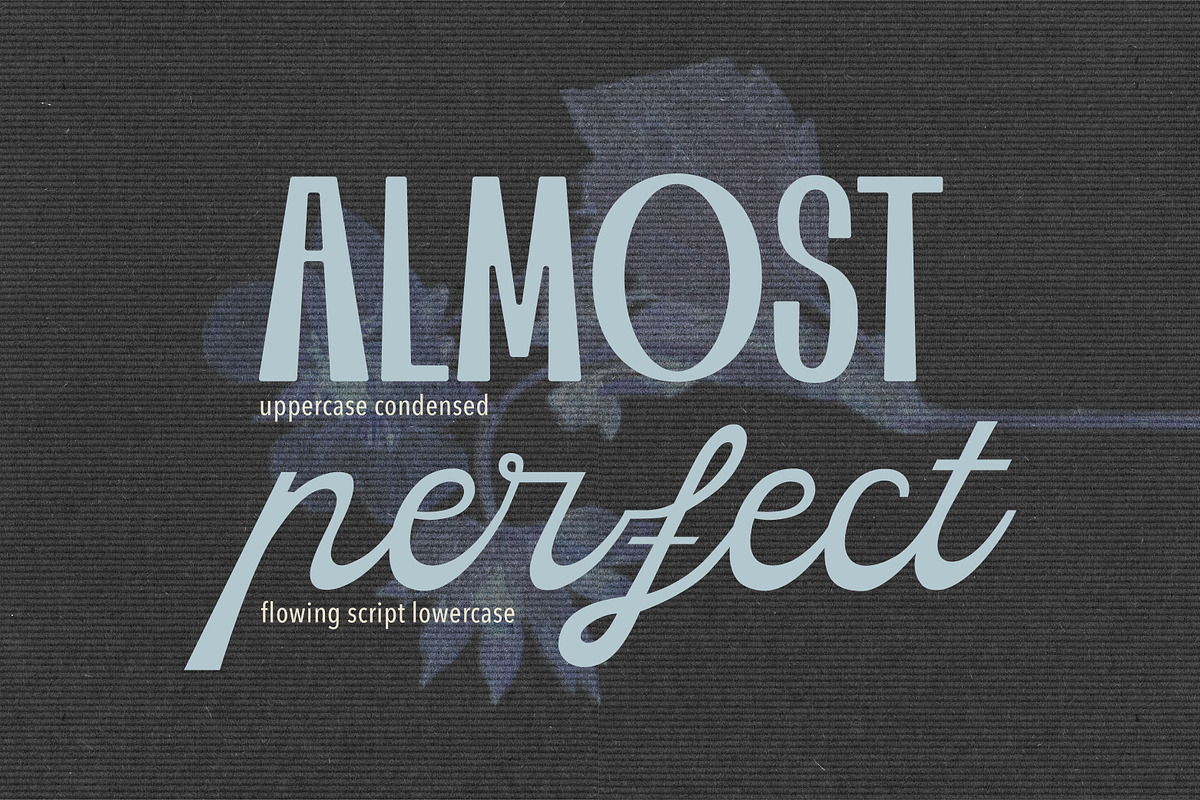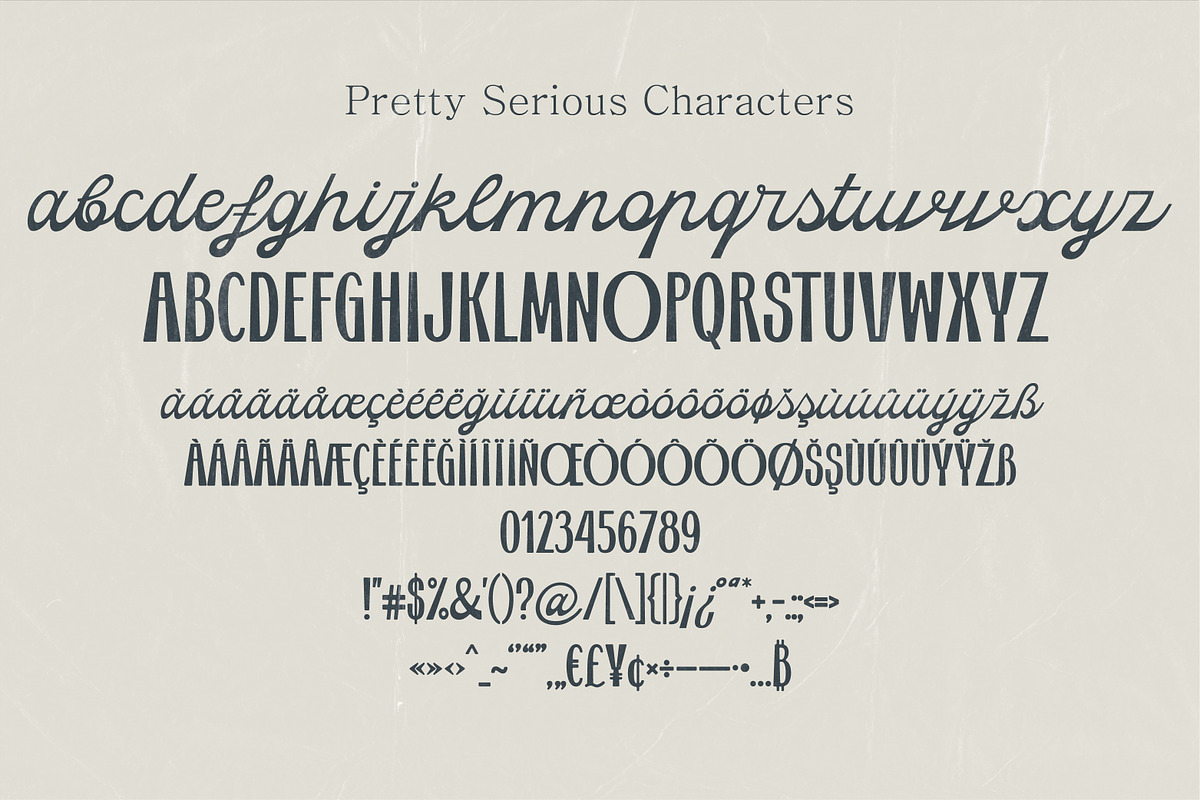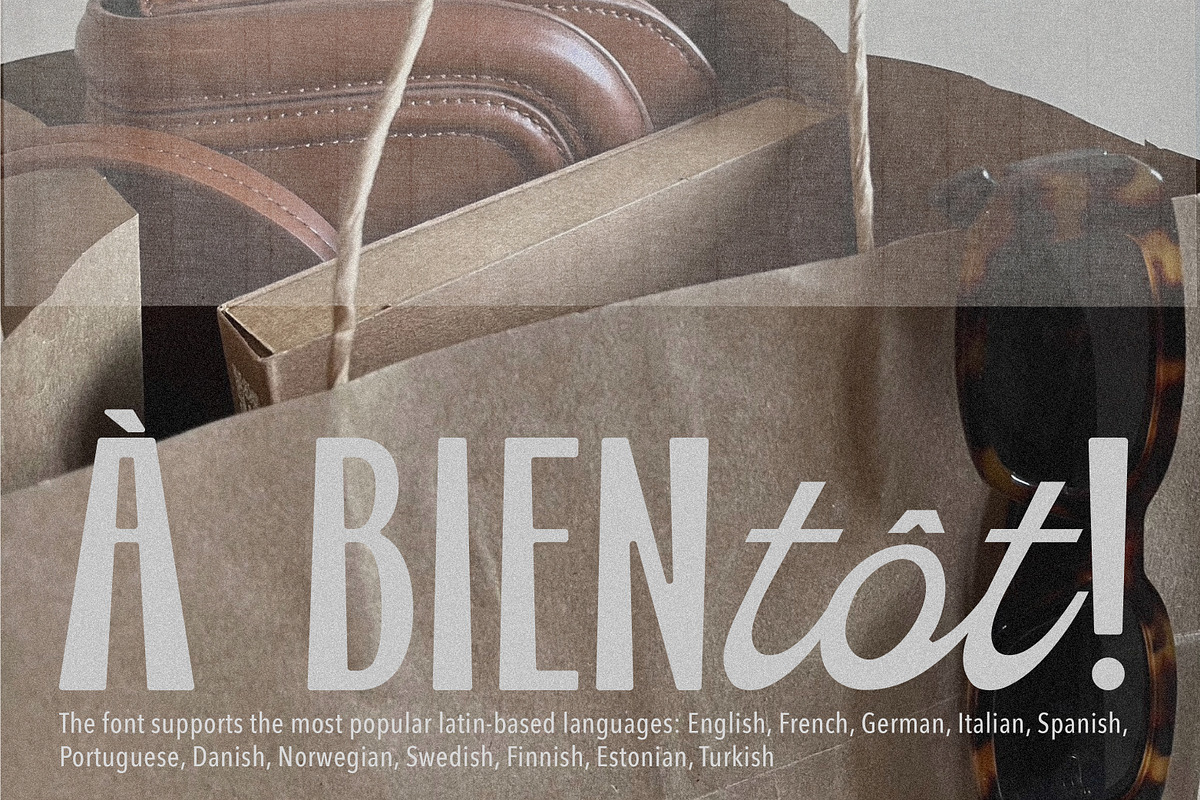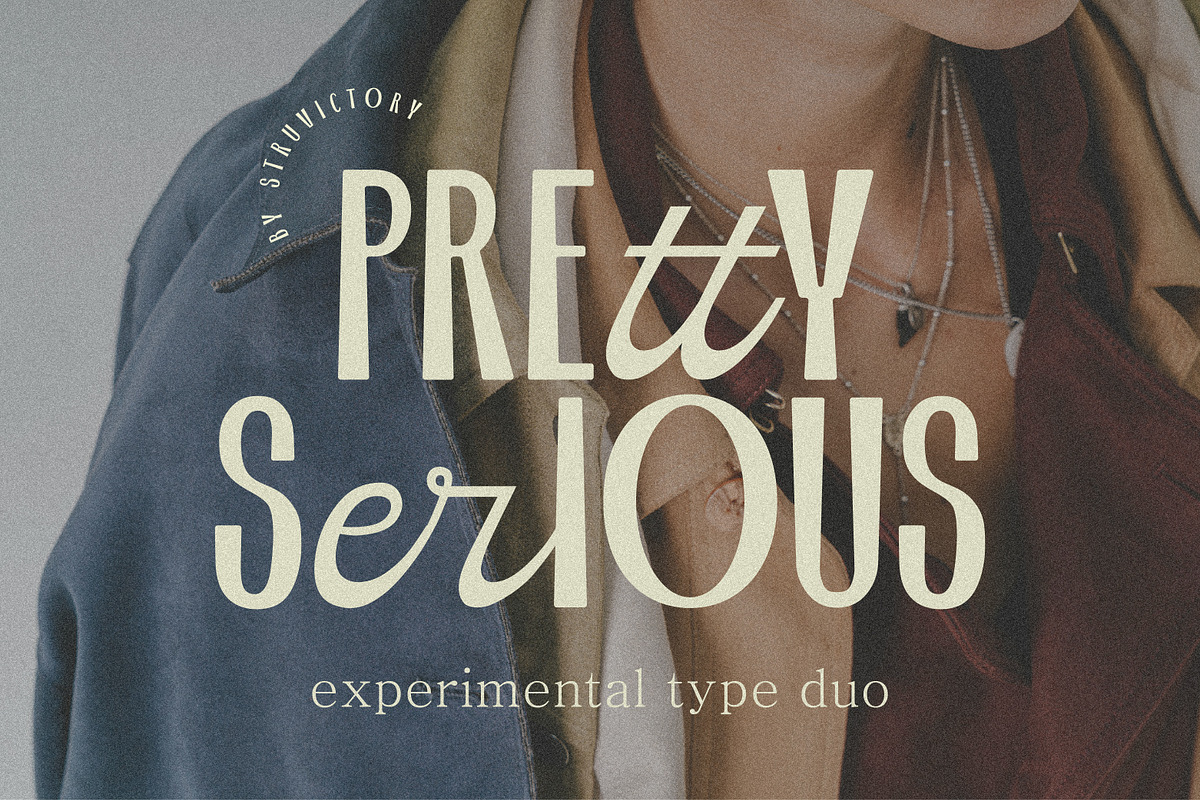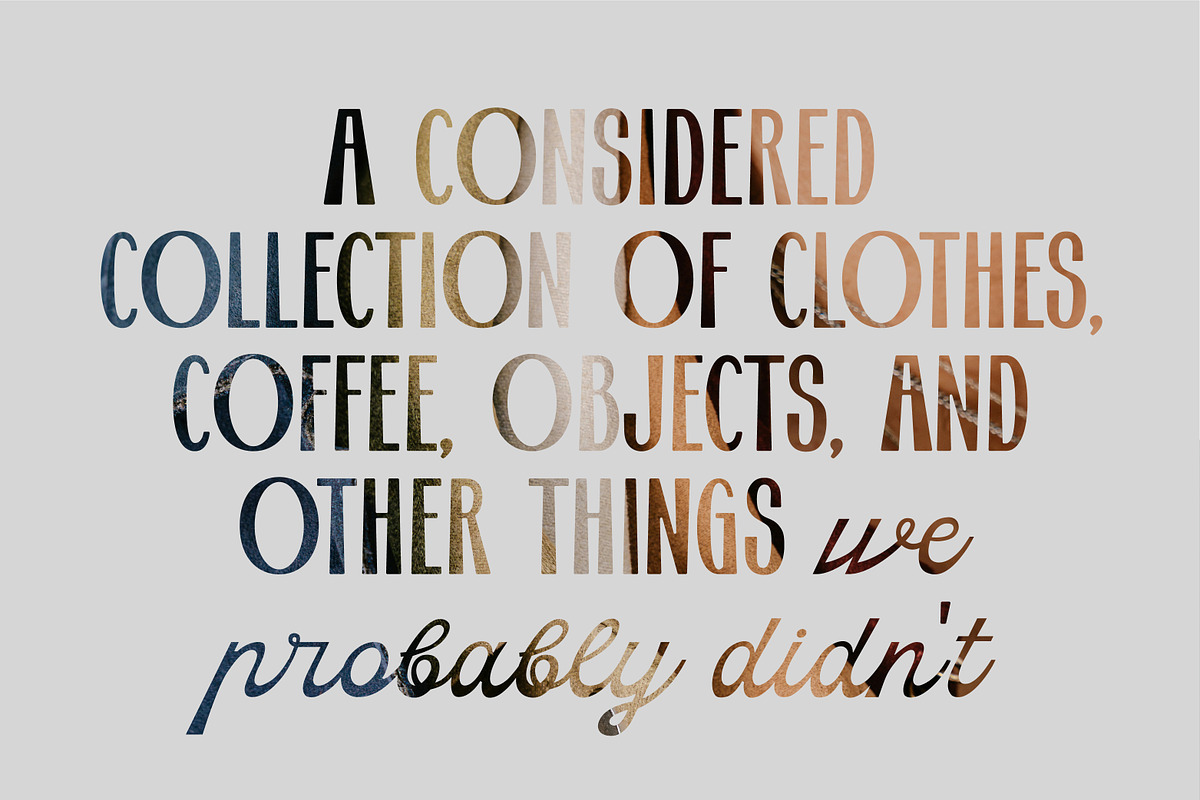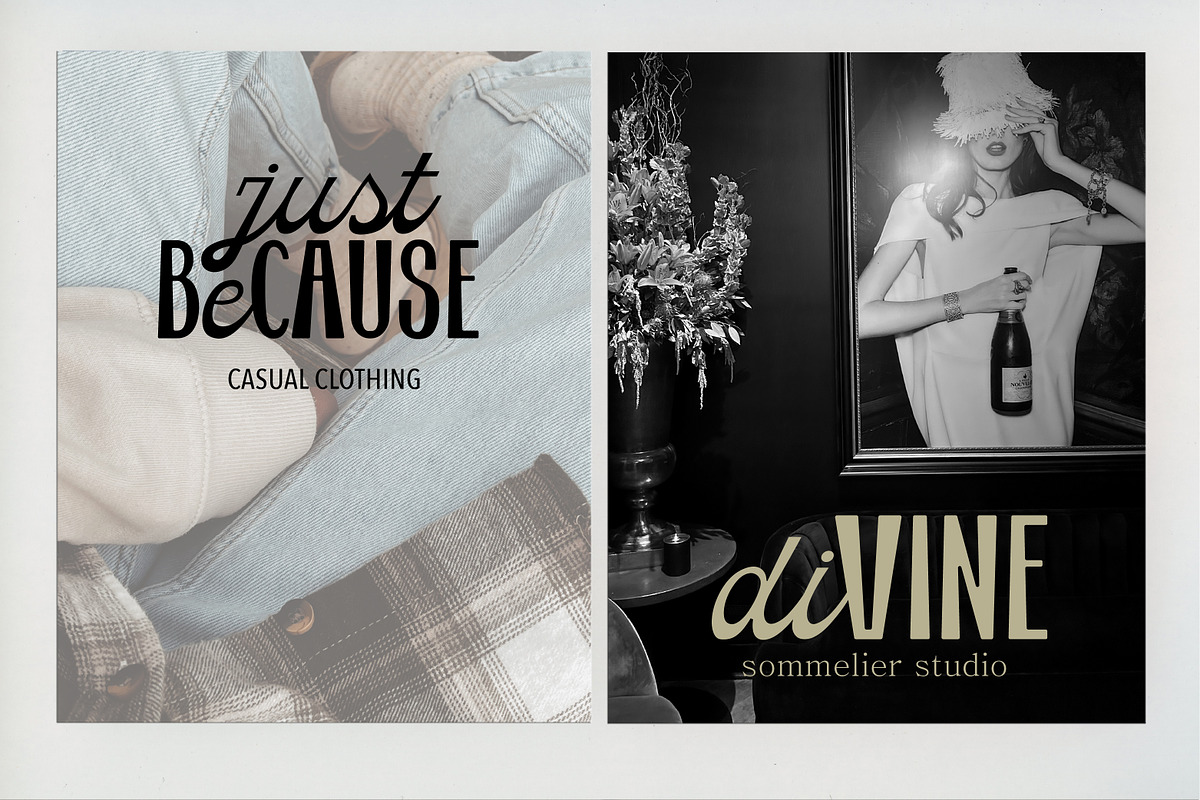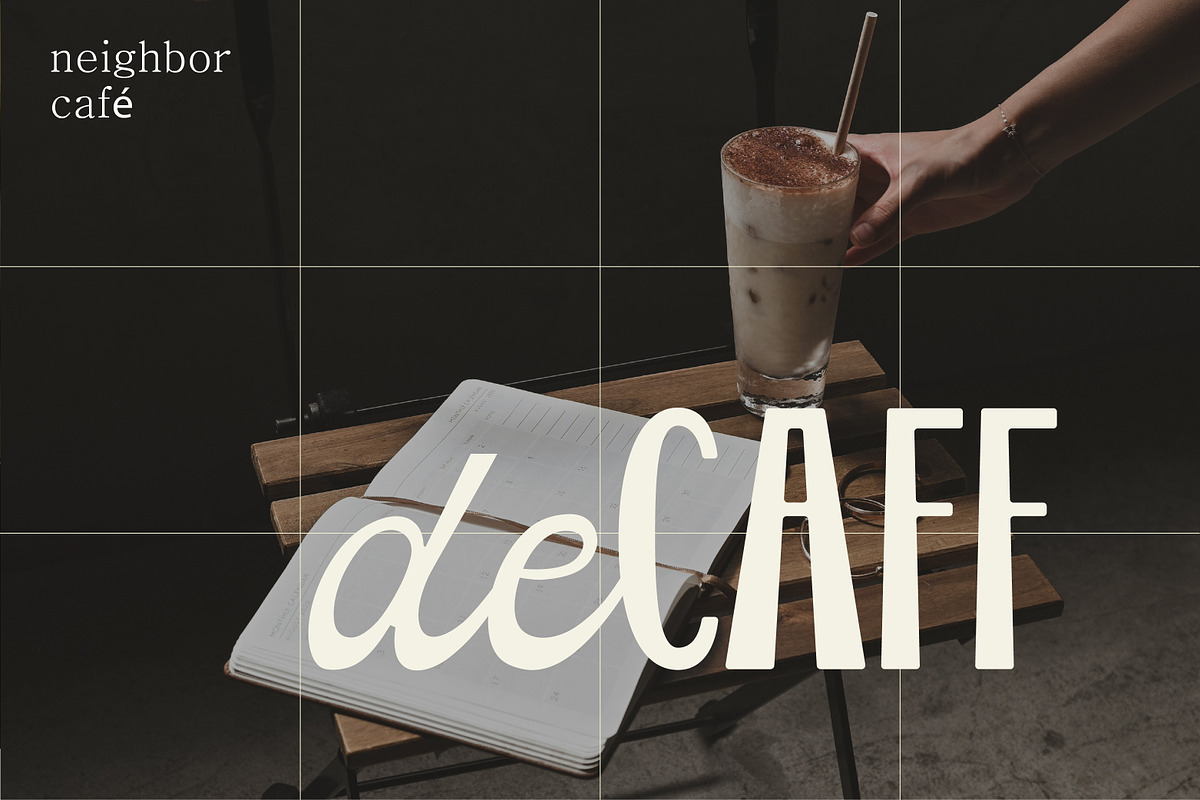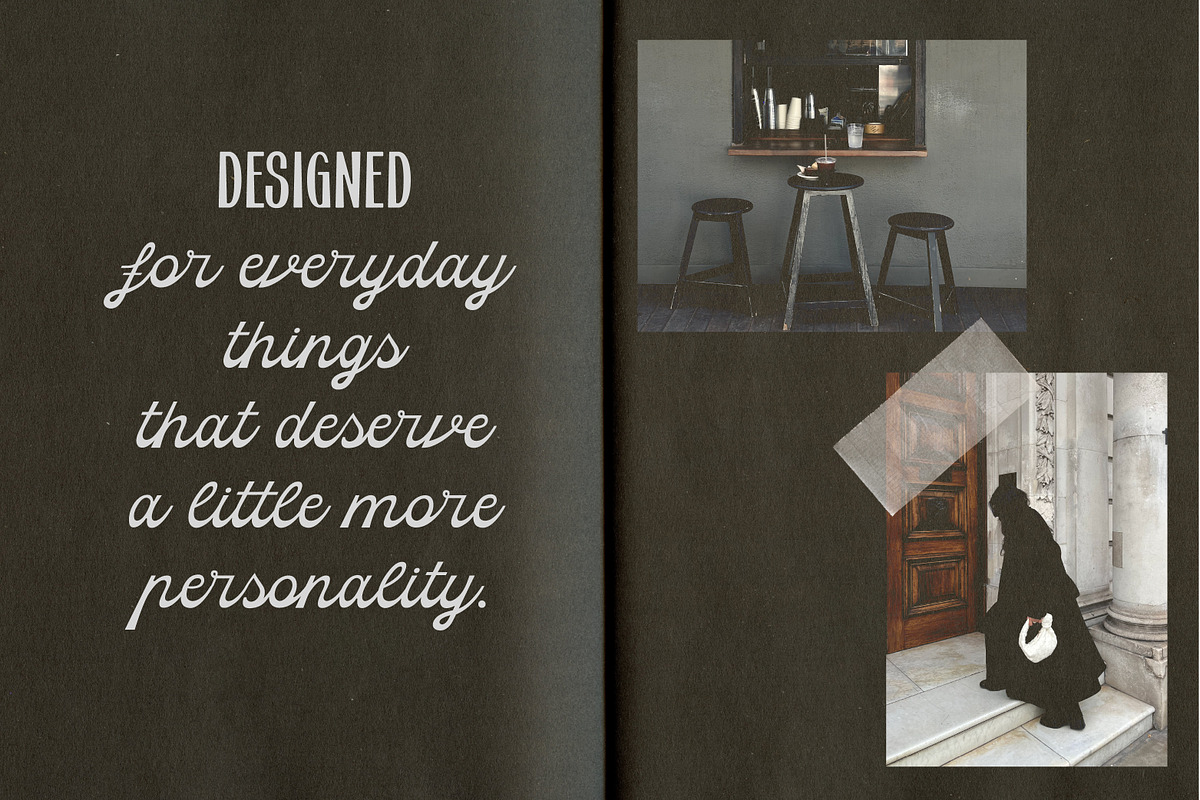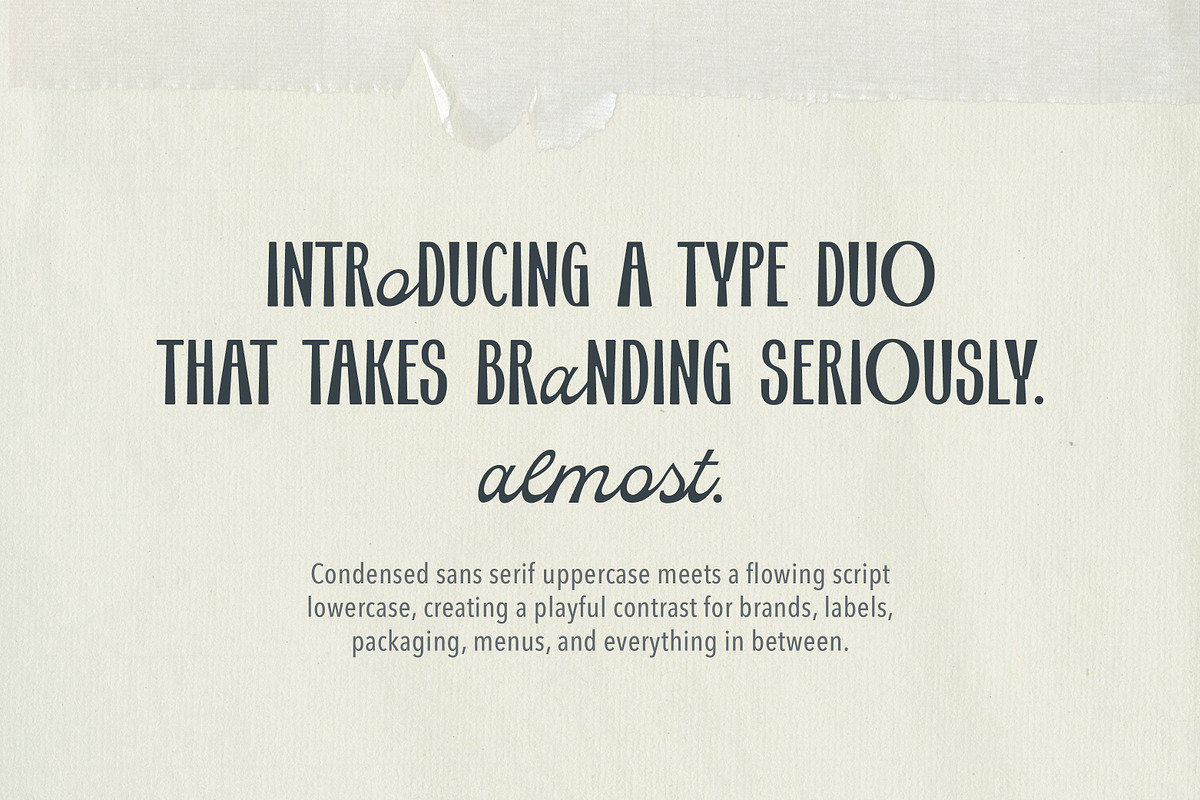
Pretty Serious Experimental Duo Sans
Pretty Serious is an experimental type duo that brings two contrasting voices into one flexible system. Condensed sans serif uppercase letters meet a flowing script lowercase, creating a playful mix of structure and movement. Designed for contemporary branding, fashion labels, cafés, restaurants, packaging, editorial layouts, posters, menus, and lifestyle projects, Pretty Serious can shift from polished and sophisticated to casual and slightly cheeky. Its condensed uppercase adds a strong, confident presence, while the expressive script lowercase brings warmth, personality, and a more human touch.
Pretty Serious supports the most popular latin-based languages, you can check the symbol you need by typing a couple of words in the font preview box.